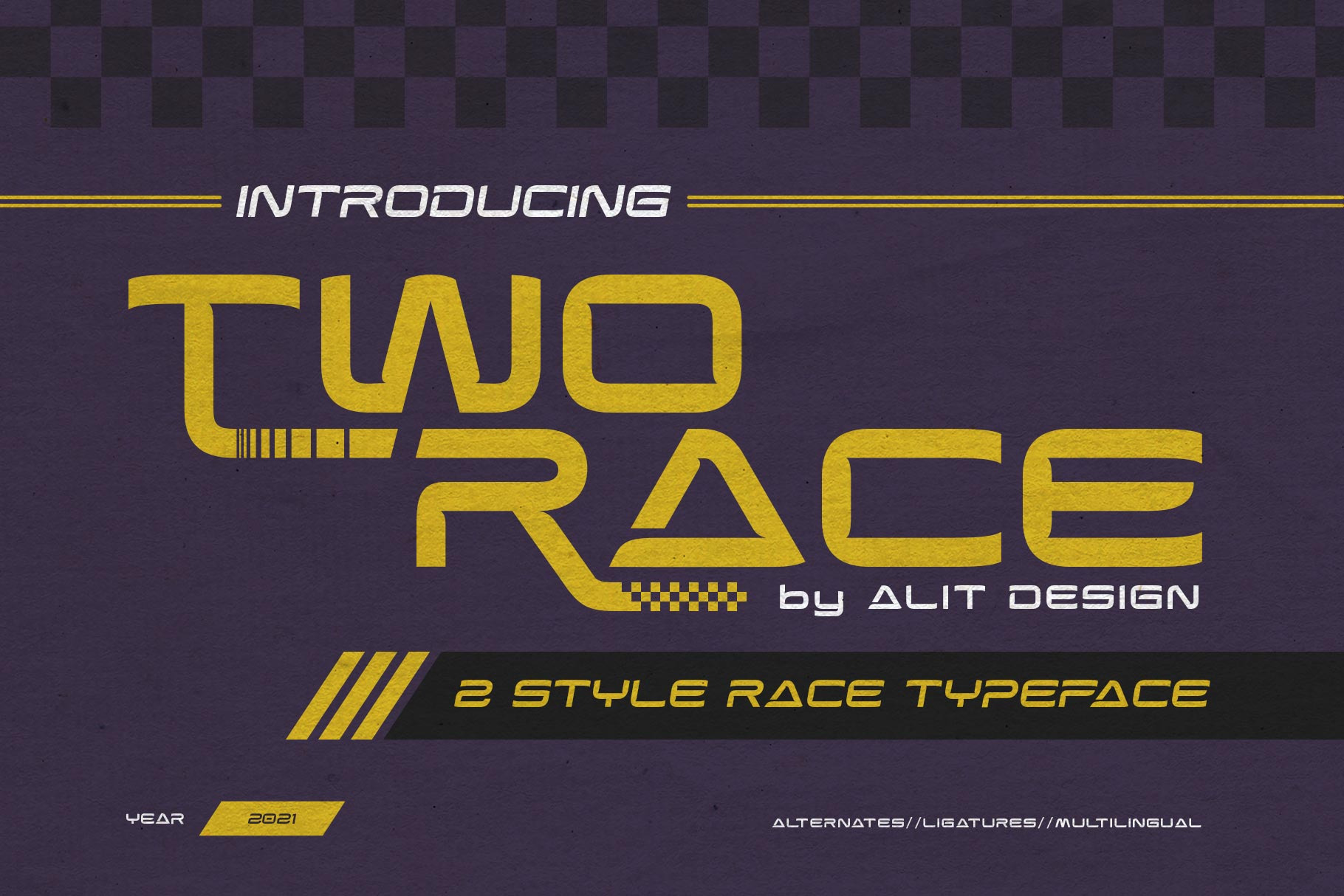
Two Race Typeface
Introducing Two Race Typeface
🏁The Two Race font 🏁 is inspired by the sporty racing display font. This bold, italic and strong font with an impression of speed is perfect for making sports racing themed designs. Can be used for making logo designs, car stickers, racing event titles and so on with sport race themes.
In addition to the regular Two Race, there is also an italic version which makes it look faster and cooler.